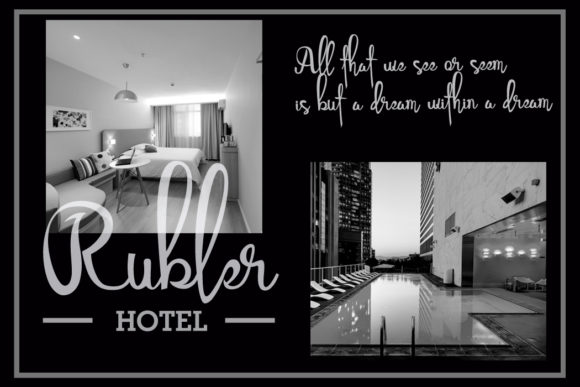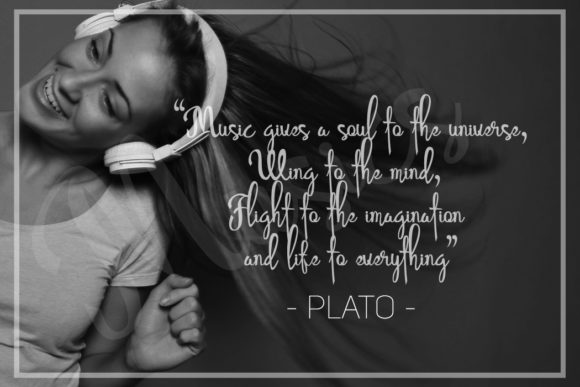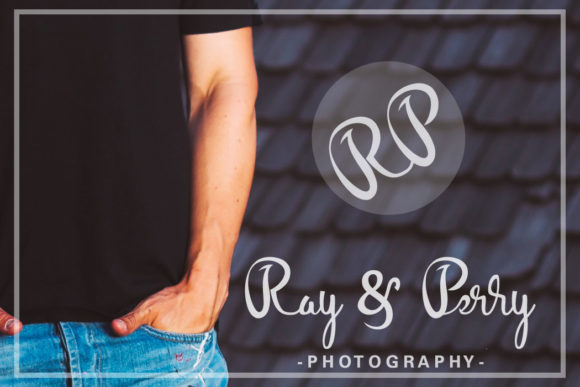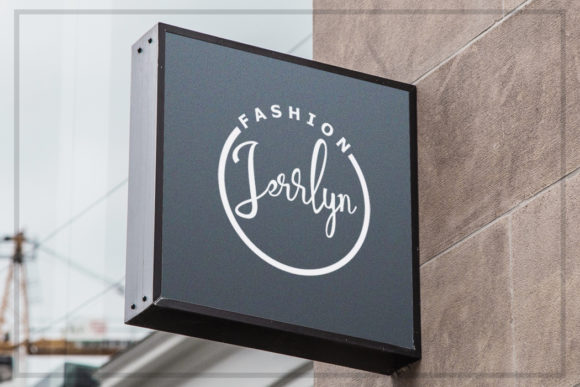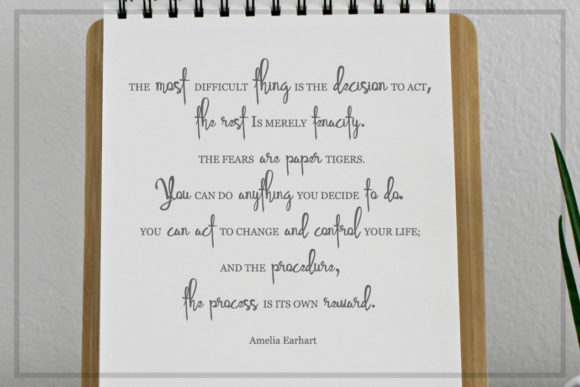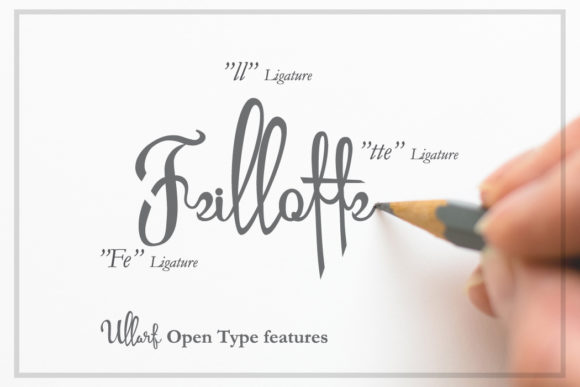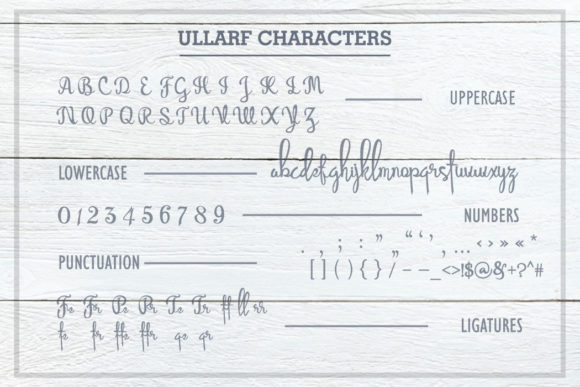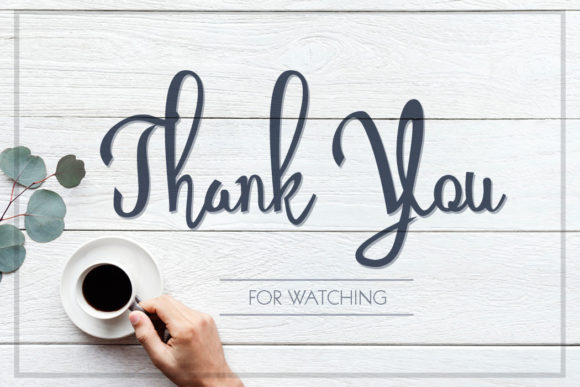
Ullarf Font
About Ullarf Font
The Ullarf is a lovely script font. It’s perfect for branding, headers, product packaging, wedding invites, cards and any other design which needs an elegant touch.